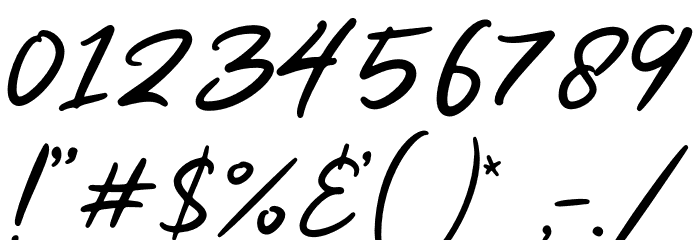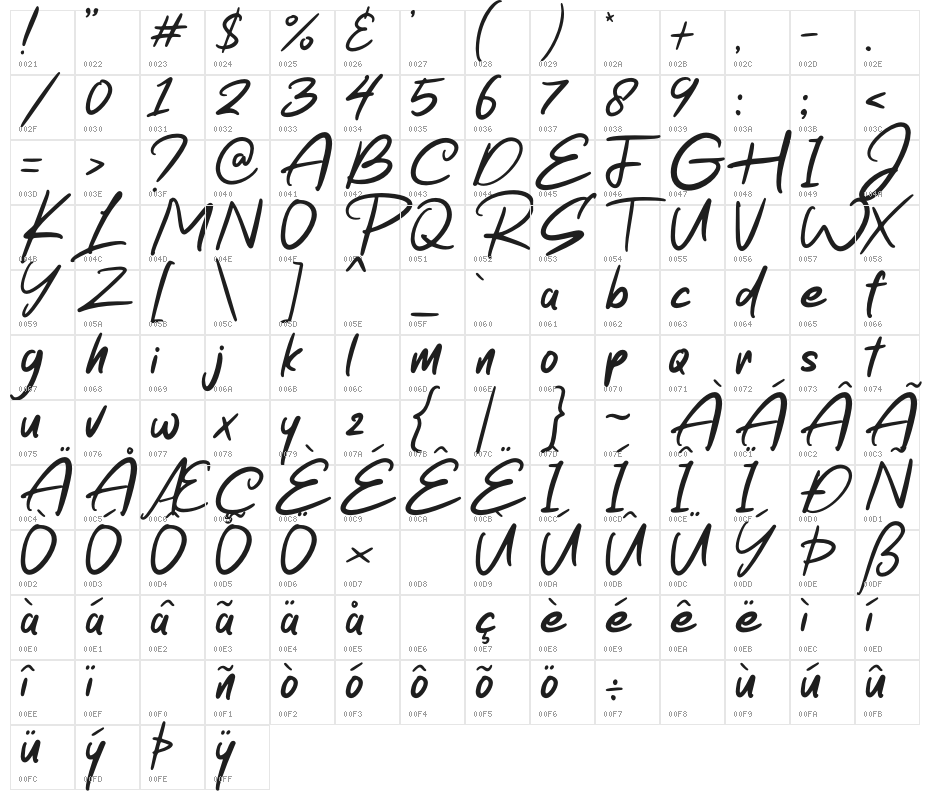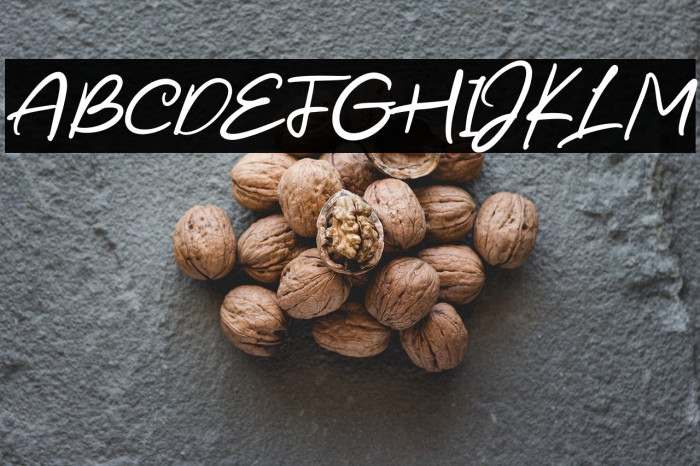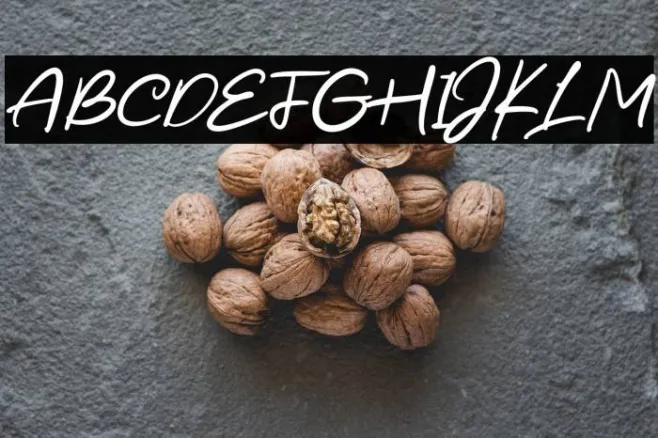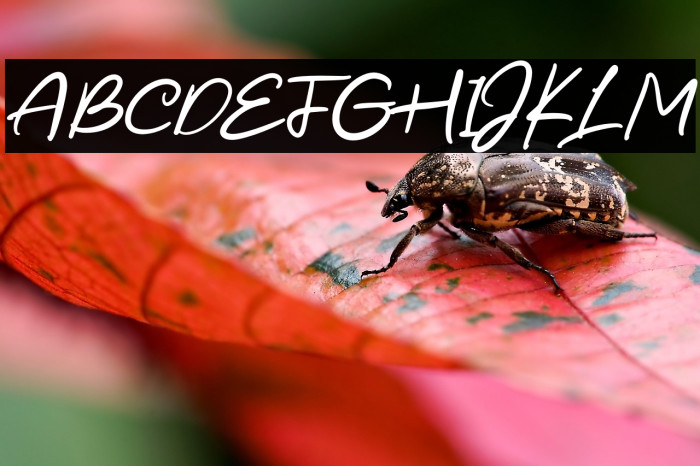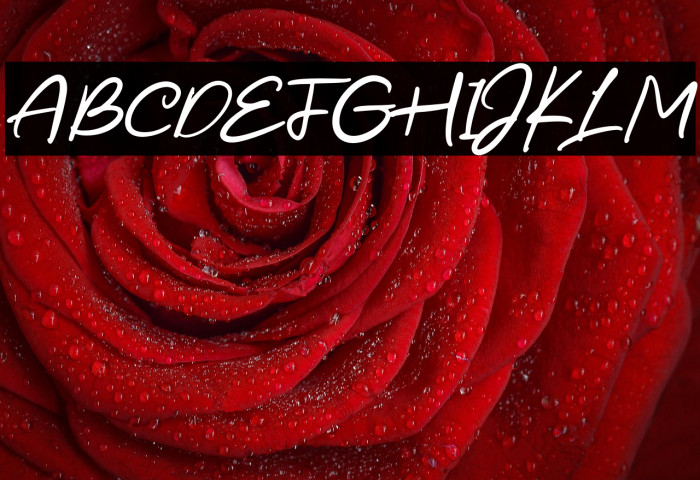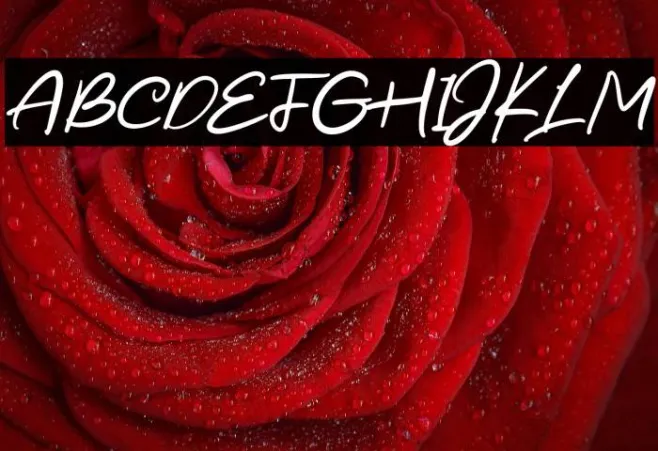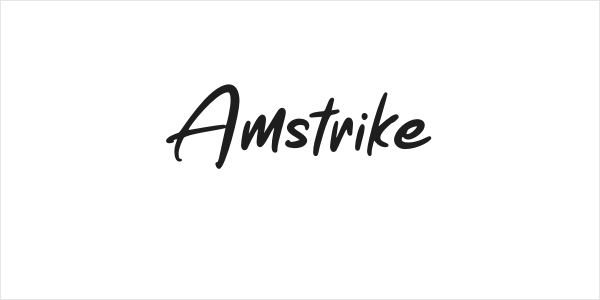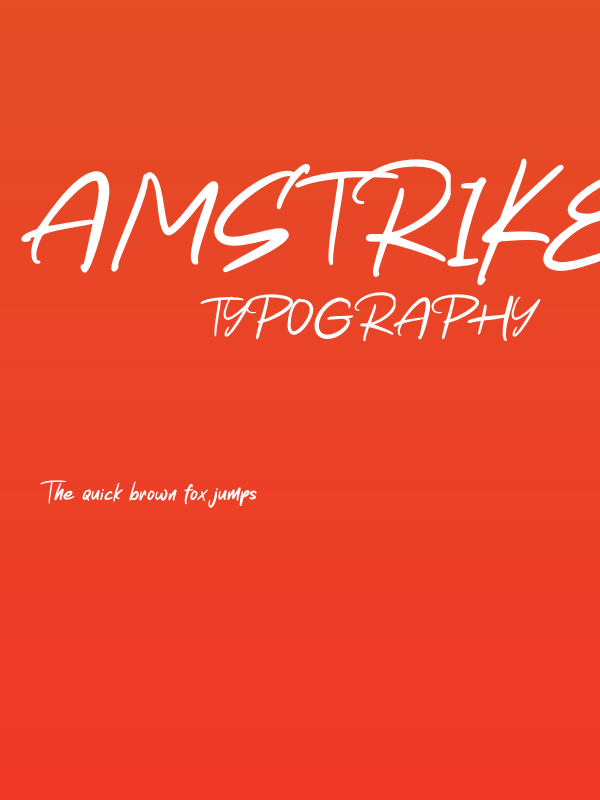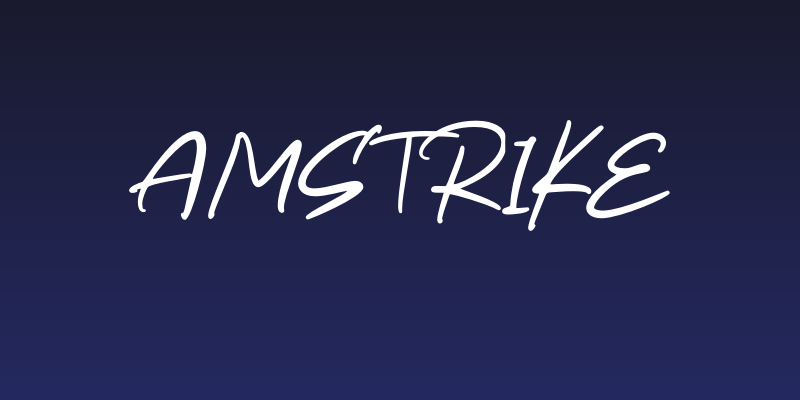
Amstrike Font
Amstrike Description
This font features a dynamic and energetic script style, characterized by its fluid and connected letterforms. The uppercase letters are bold and slightly slanted, giving a sense of movement and flair. The lowercase letters maintain a consistent flow with smooth curves and rounded edges, enhancing readability while retaining a casual, handwritten feel. The numerals are well-proportioned and align seamlessly with the overall style, making them suitable for various applications. Special characters are thoughtfully designed to match the font's lively aesthetic, ensuring versatility in design projects.